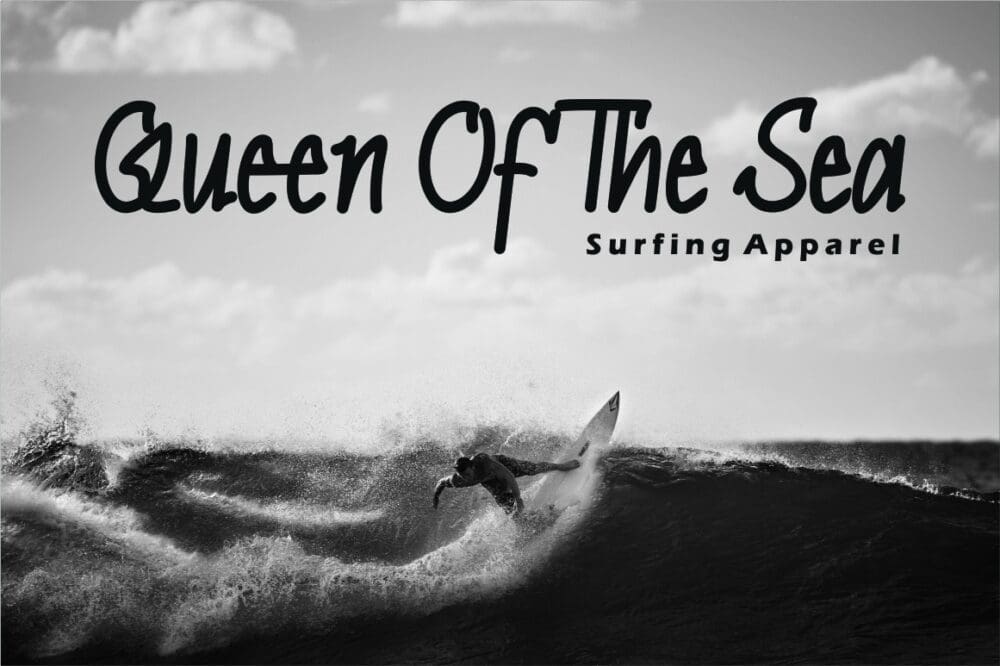
Sectumsempra Font
Sectumsempra is a modern display font that will make your designs stand out from the crowd. Its unique letterforms and bold, geometric shapes create a sense of strength and individuality that’s perfect for branding, advertising, and other attention-grabbing designs. This typeface is the perfect choice for those who want to make a statement.